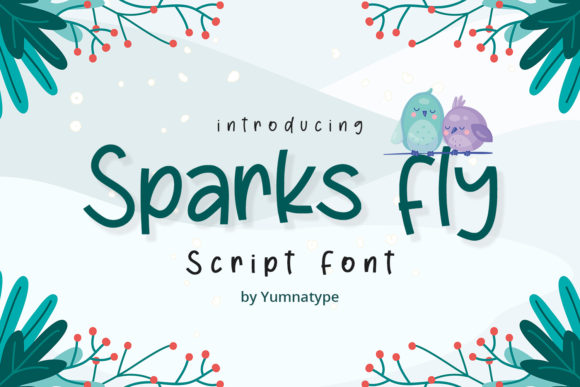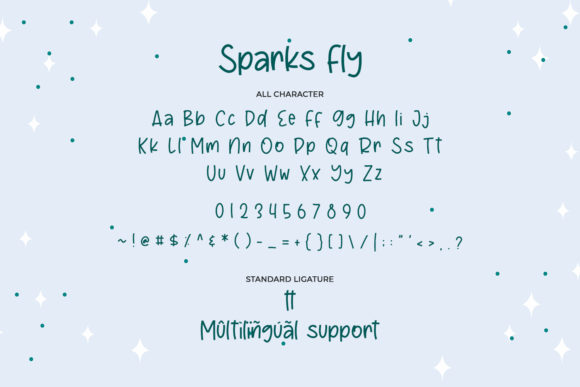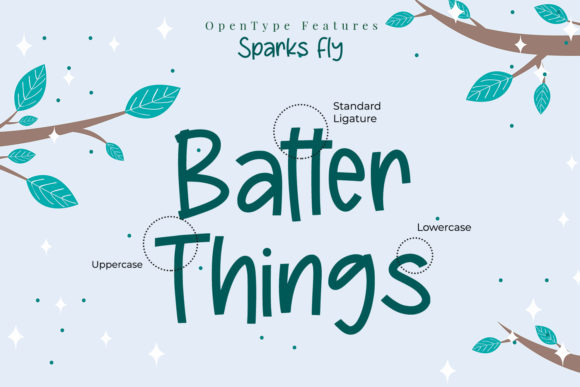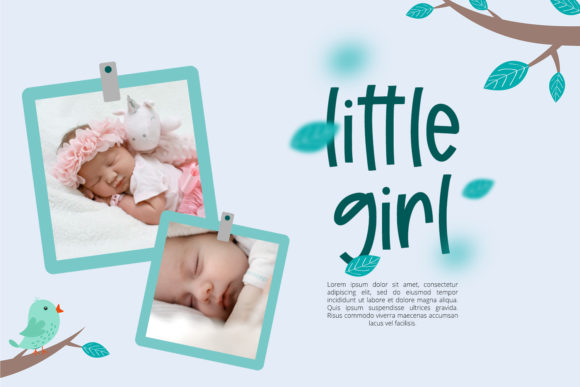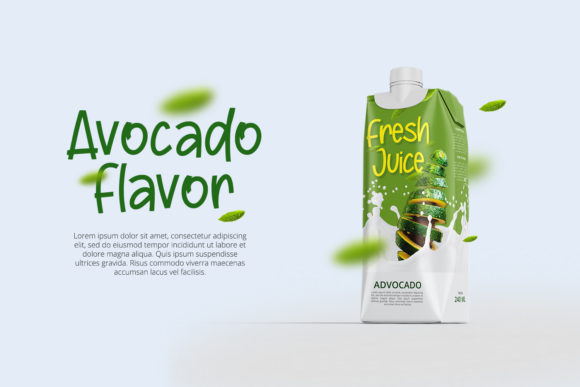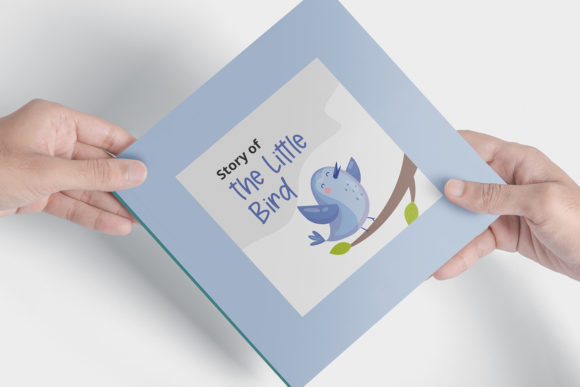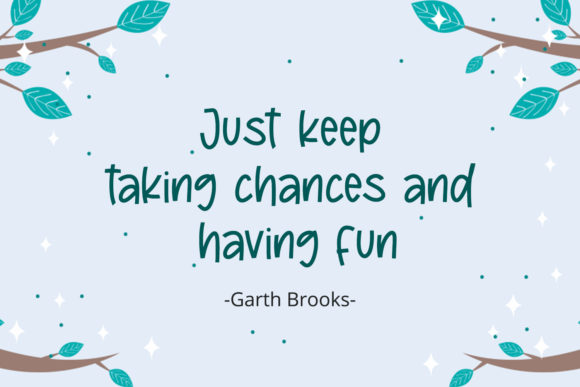
Sparks Fly Font
About Sparks Fly Font
Sparks Fly is a casual and friendly handwritten font. Not too thin and not too thick, balanced and varied, this font was designed to enhance the beauty of your projects.